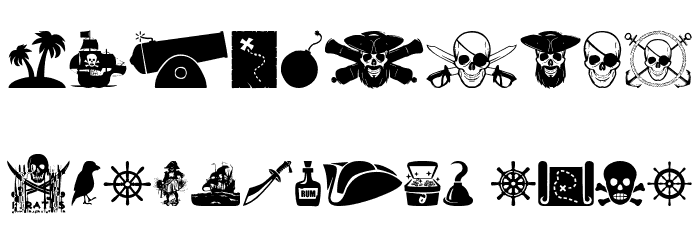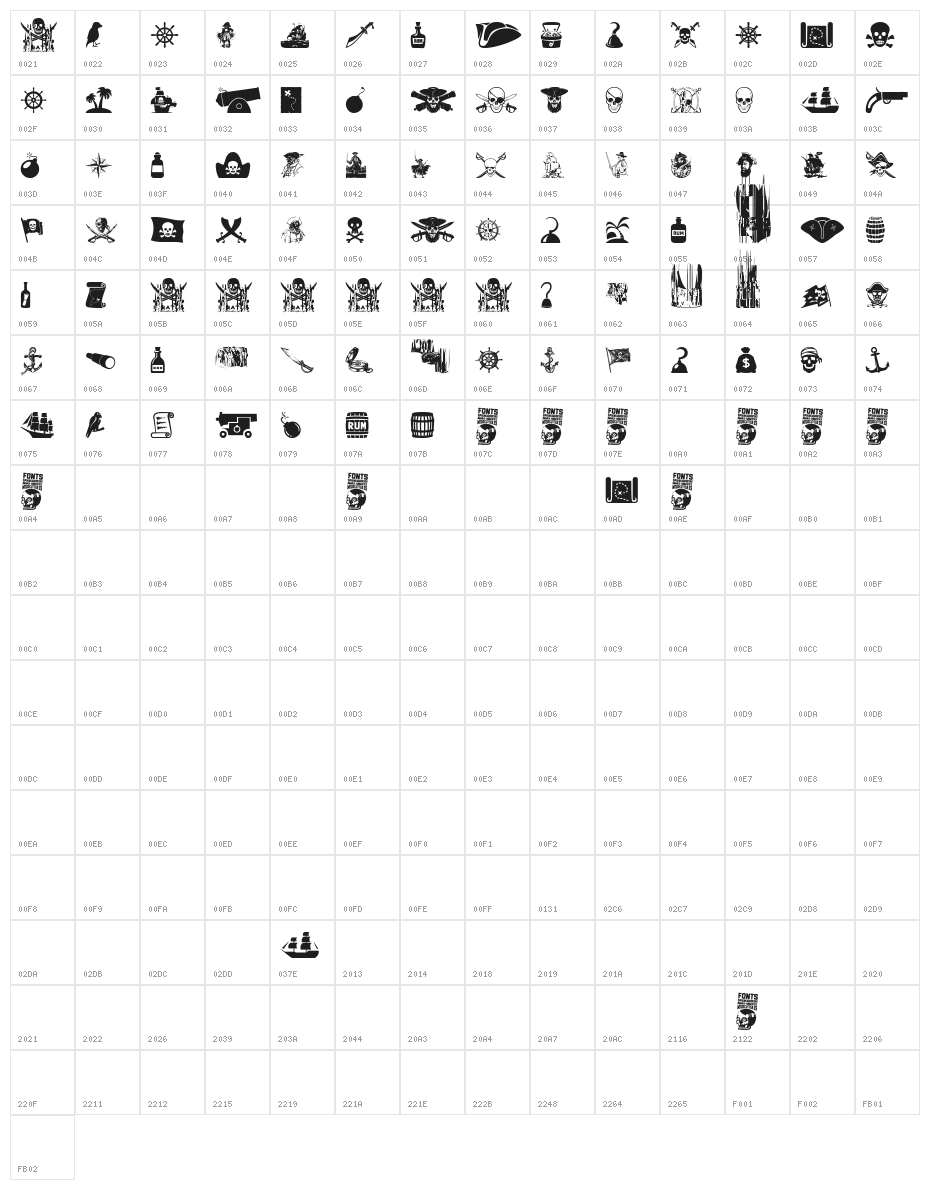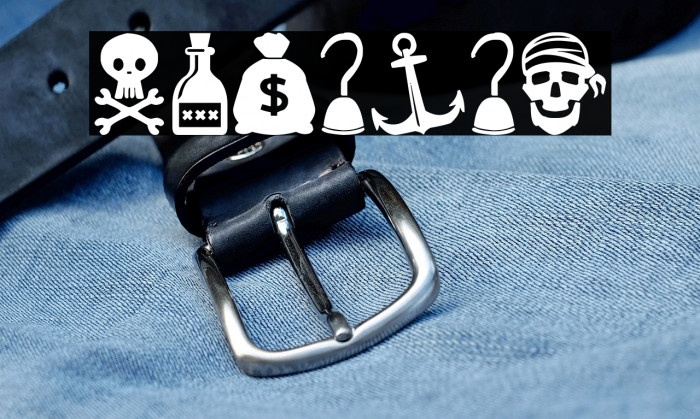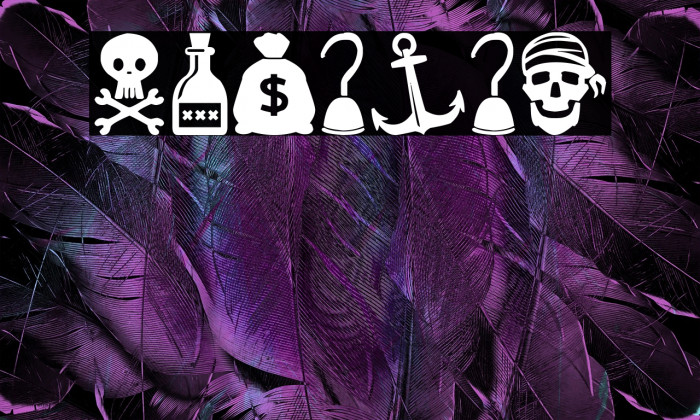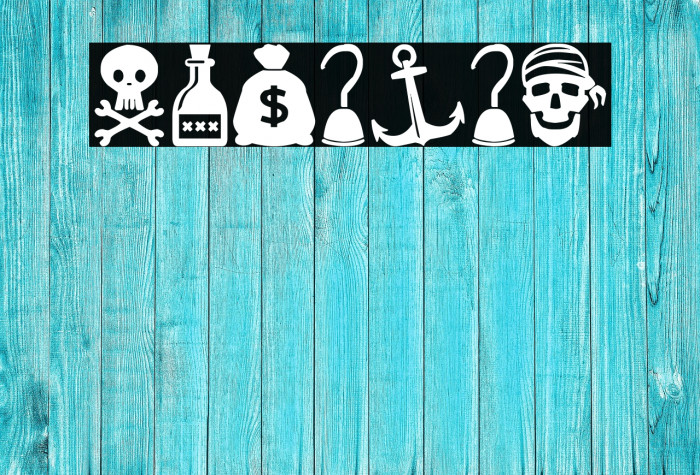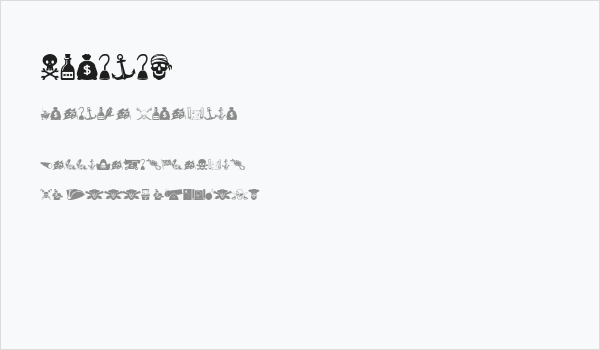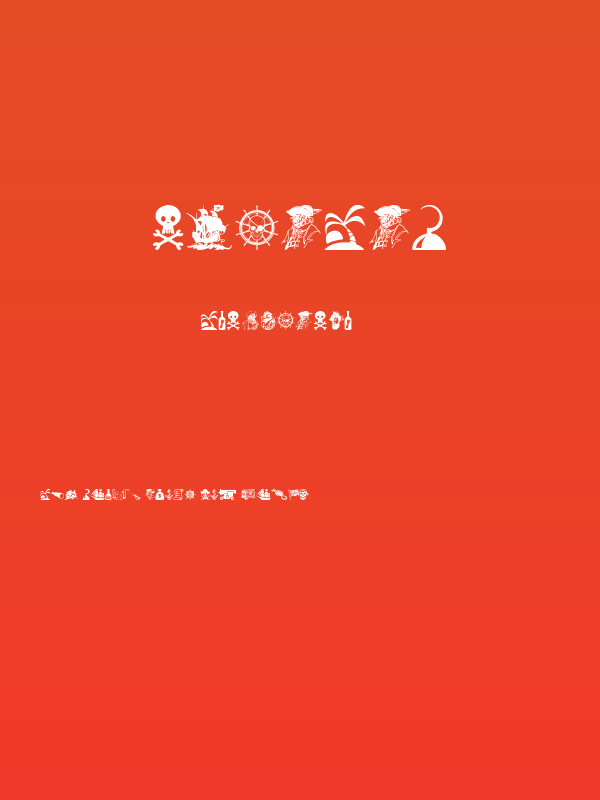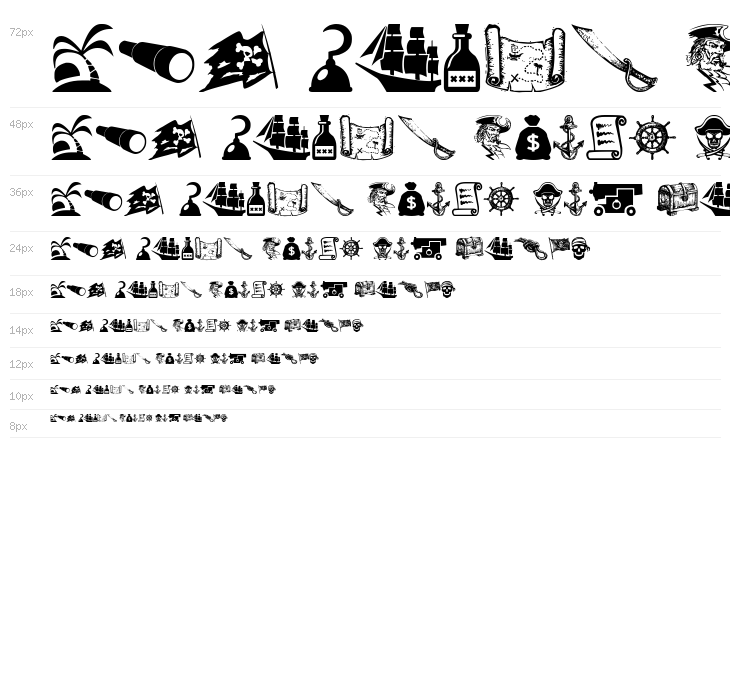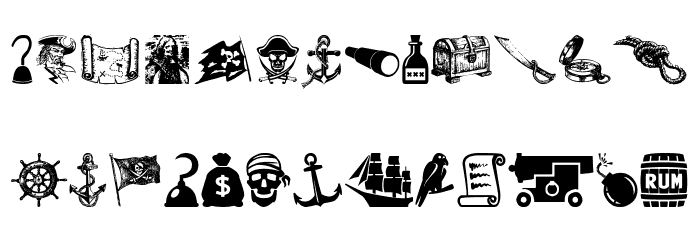
Piratas Font
Piratas Description
A decorative dingbat font featuring a wide variety of pirate-themed illustrations, including skulls, crossbones, pirate ships, treasure chests, maps, anchors, cannons, rum bottles, and other related motifs. Each character is represented by a unique, detailed black-and-white icon rather than traditional alphanumeric glyphs.
| Overall Style | Decorative, Thematic, Playful |
| Use Case | Illustrative elements, Themed headlines, Graphic accents |
| Proposed Projects | Party invitations, event posters, themed graphics, childrenΓ’β¬β’s books, scrapbooking, educational materials, and novelty merchandise. |